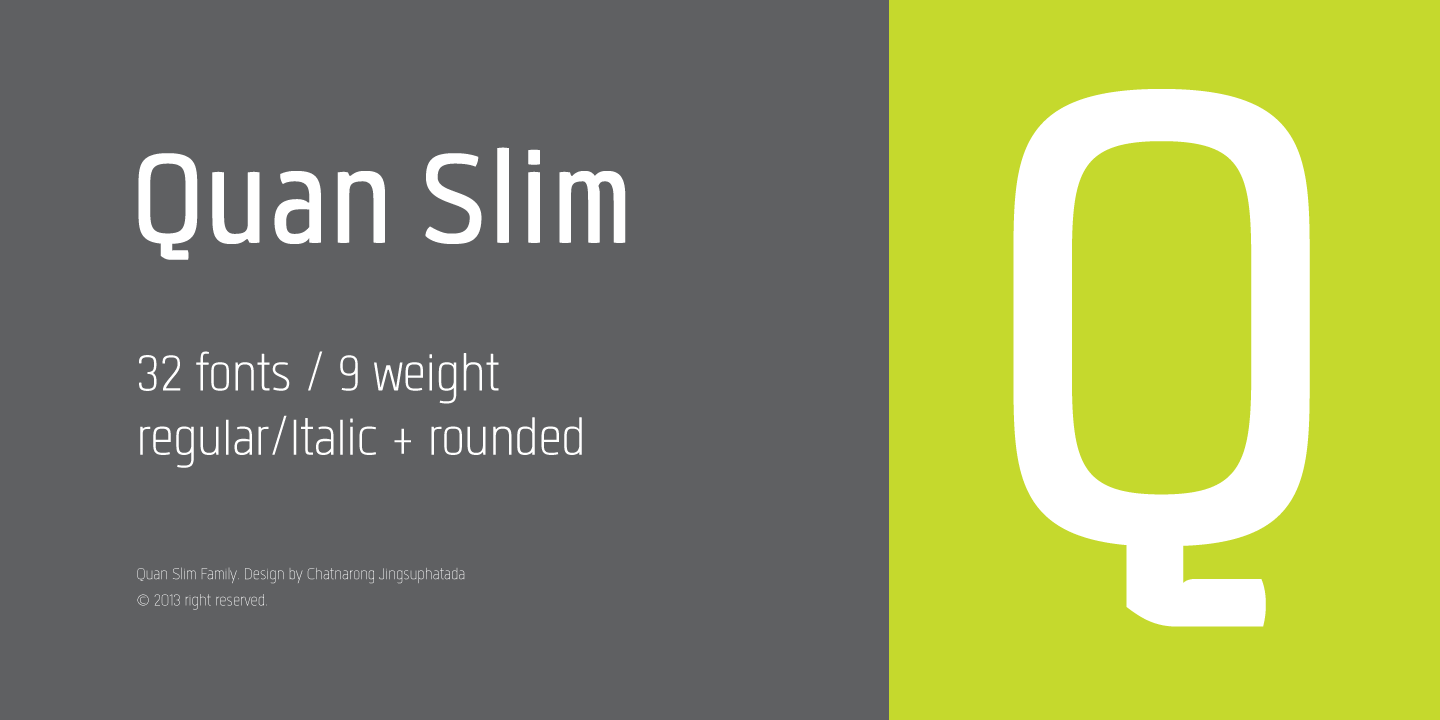
Quan Slim Font is ideal for modern fashion editorials, sleek product packaging, minimalist brand identities, contemporary magazine layouts, elegant web typography, sophisticated advertising campaigns, refined corporate communications, upscale beauty marketing, and cutting-edge digital interfaces.
What makes Quan Slim Font so exciting is its refined slender elegance that perfectly embodies contemporary sophistication and minimalist design excellence with effortless grace. This sophisticated typeface features sleek letterforms with condensed proportions and streamlined character details that create an immediate sense of modern luxury and editorial refinement. The font's distinctive character incorporates the essence of high-fashion typography while maintaining exceptional readability, making it ideal for brands seeking to communicate contemporary elegance and sophisticated minimalism.
Quan Slim Font offers an elegant family collection including Thin, Light, Regular, Medium, Bold, and Black weights, each designed to maintain the signature slender aesthetic while providing maximum versatility for various contemporary applications. Advanced OpenType features include stylistic alternates, elegant ligatures, and extended character support for international luxury brands requiring sophisticated typography solutions.
Whether you're developing high-end fashion brands, creating editorial design layouts, or designing contemporary marketing materials, Quan Slim Font Free Download provides the sleek sophistication and modern elegance that luxury brands demand. Its versatile nature makes it suitable for both display applications and refined text settings while maintaining consistent contemporary appeal across all sophisticated platforms. This exceptional typeface combines modern design principles with timeless elegance, ensuring your message communicates refinement and style that resonates with audiences who appreciate contemporary luxury and value design that represents the pinnacle of modern typographic sophistication and editorial excellence.